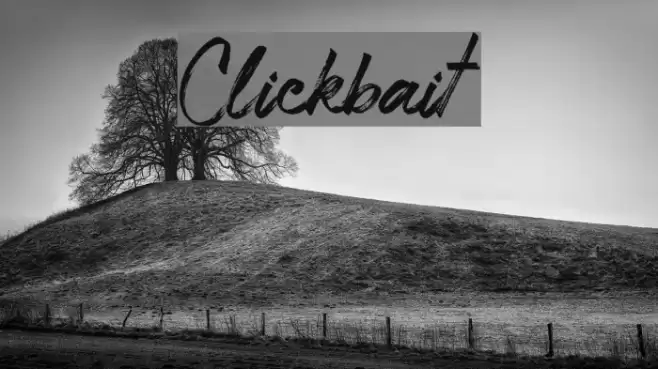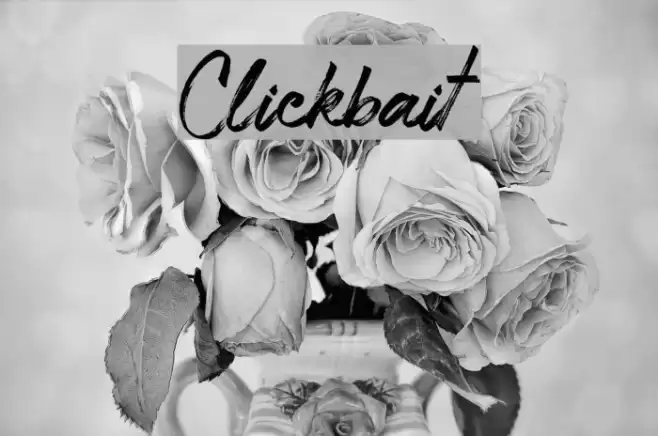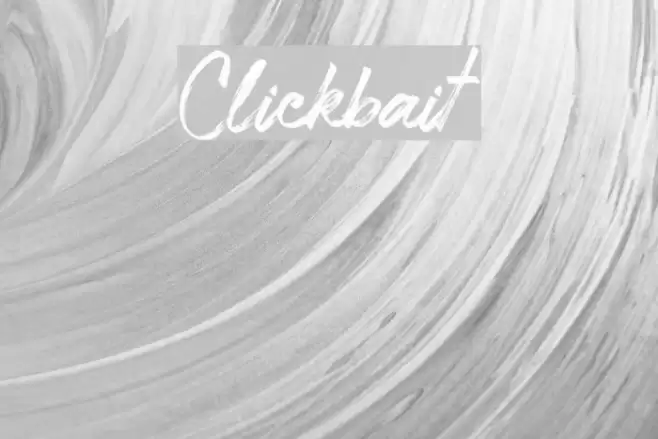
Clickbait Font
Clickbait Description
This font exudes a bold and expressive style, characterized by its brush-like strokes that convey a sense of movement and dynamism. The letters are crafted with a natural, hand-painted appearance, giving it an artistic and personal touch. The uppercase letters are prominent and striking, while the lowercase letters maintain a consistent flow, enhancing readability despite the artistic flair. The overall design is both modern and edgy, making it suitable for projects that require a strong visual impact.
A bold, brush-style font with expressive, dynamic strokes from Uncategorized fonts.
- Proposed Projects: Ideal for branding, poster design, social media graphics, and any project needing a bold, artistic touch.
- Contrast: High
- Use Case: Logos, Headlines, Posters